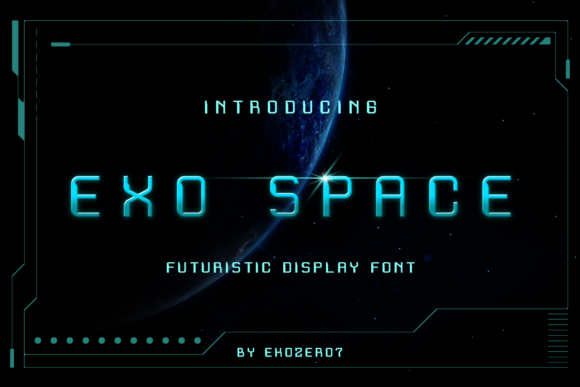
Journey into the cosmic realm of typography with Exo Space Font, a display font designed to transport your designs to the next dimension. Inspired by the vastness of space, this font exudes an aura of mystery and wonder that will leave your audience captivated.
Exo Space's sharp angles and geometric shapes evoke a sense of modernity and innovation, making it the perfect choice for video games, posters, flyers, and any design project seeking a futuristic aesthetic. With its bold and distinctive letterforms, this font commands attention and demands to be seen.
Unlike other fonts that blend into the background, Exo Space stands out with its unique and eye-catching design. Its bold strokes and dynamic curves create a visually striking effect that will leave your audience mesmerized.
Harness the power of Exo Space to elevate your designs to new heights. Whether you're a seasoned designer or just starting, this font is accessible and easy to use, allowing you to unleash your creativity and bring your visions to life.
Join the ranks of creative professionals who have discovered the transformative power of Exo Space. Let your designs shine with a font that speaks to the future and leaves an unforgettable impression. Dive into the world of Exo Space today and witness the boundless possibilities that await.